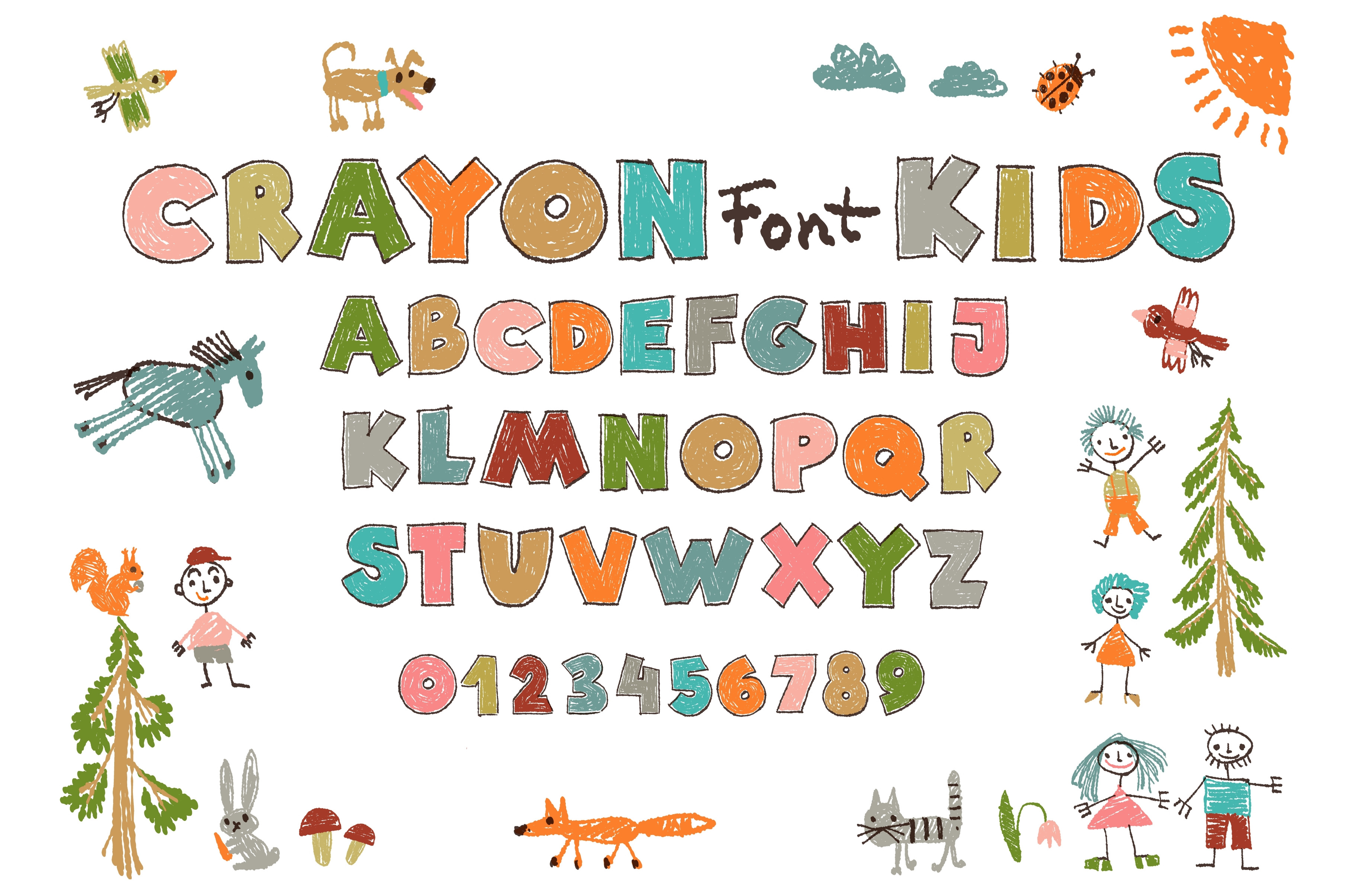
Crayon kids font. Color childish
Crayon kids font. Color childish alphabet, crayon drawings, cute doodle abc, hand drawn funny elements, letters and numbers design, handwritten isolated graphic objects splendid vector typeset set